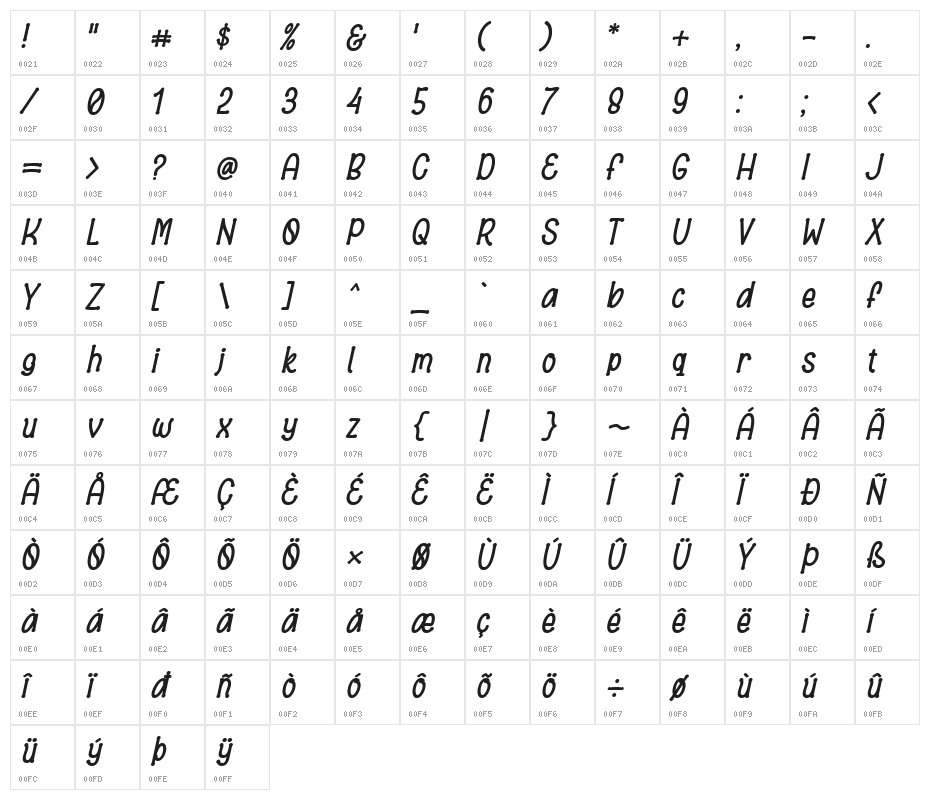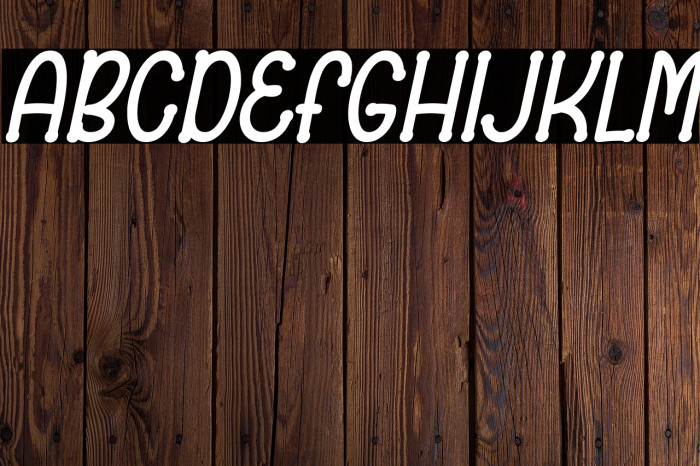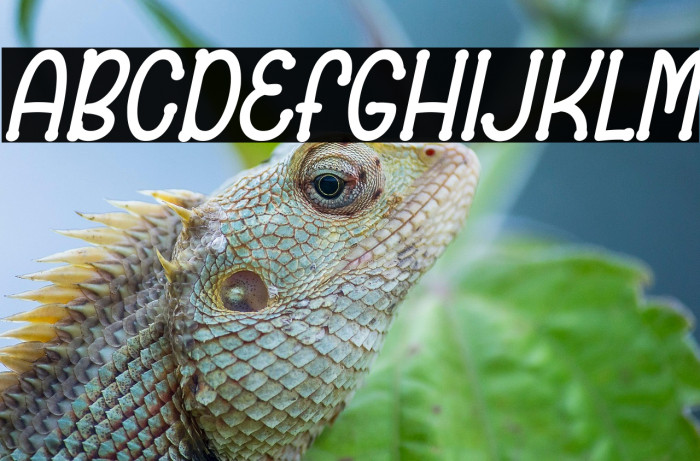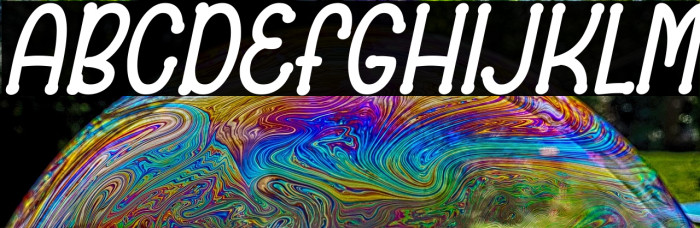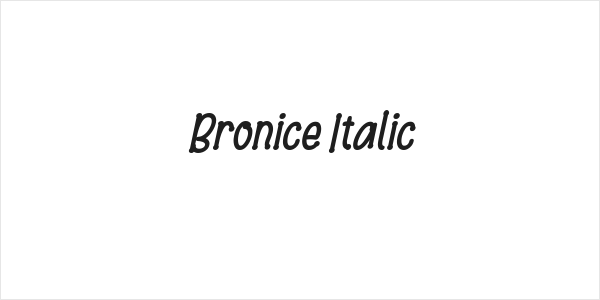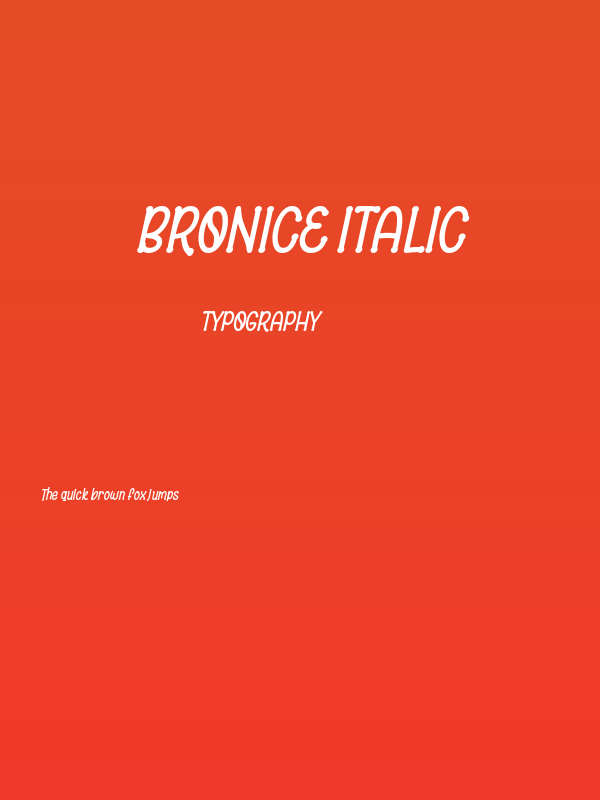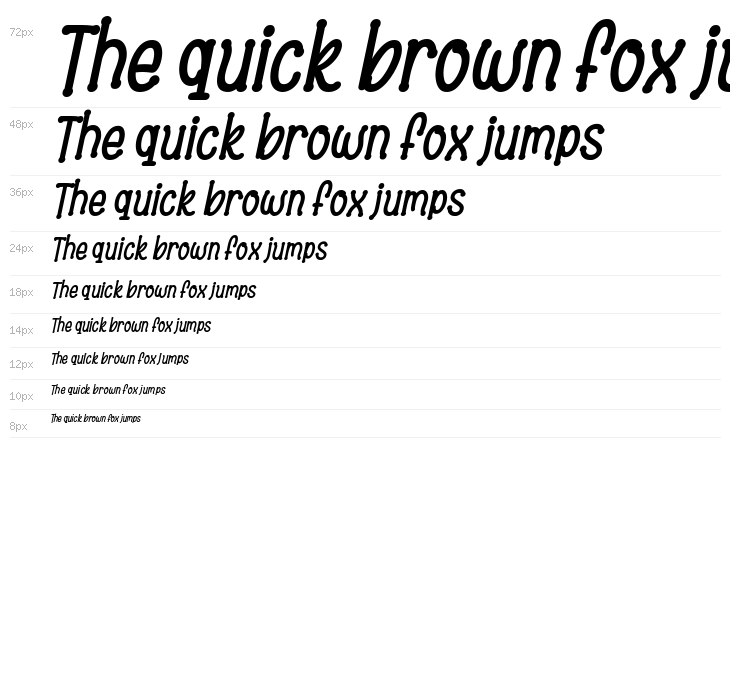
Bronice Italic Font
Bronice Italic Description
This font features a playful and dynamic script style with a slight slant, giving it an italicized appearance. The characters are bold and rounded, with a consistent stroke width that adds to its legibility. The uppercase letters are slightly larger than the lowercase, maintaining a harmonious balance. Numbers and special characters are designed to match the overall aesthetic, ensuring a cohesive look across all text. The font's smooth curves and flowing lines make it suitable for projects that require a friendly and approachable feel.